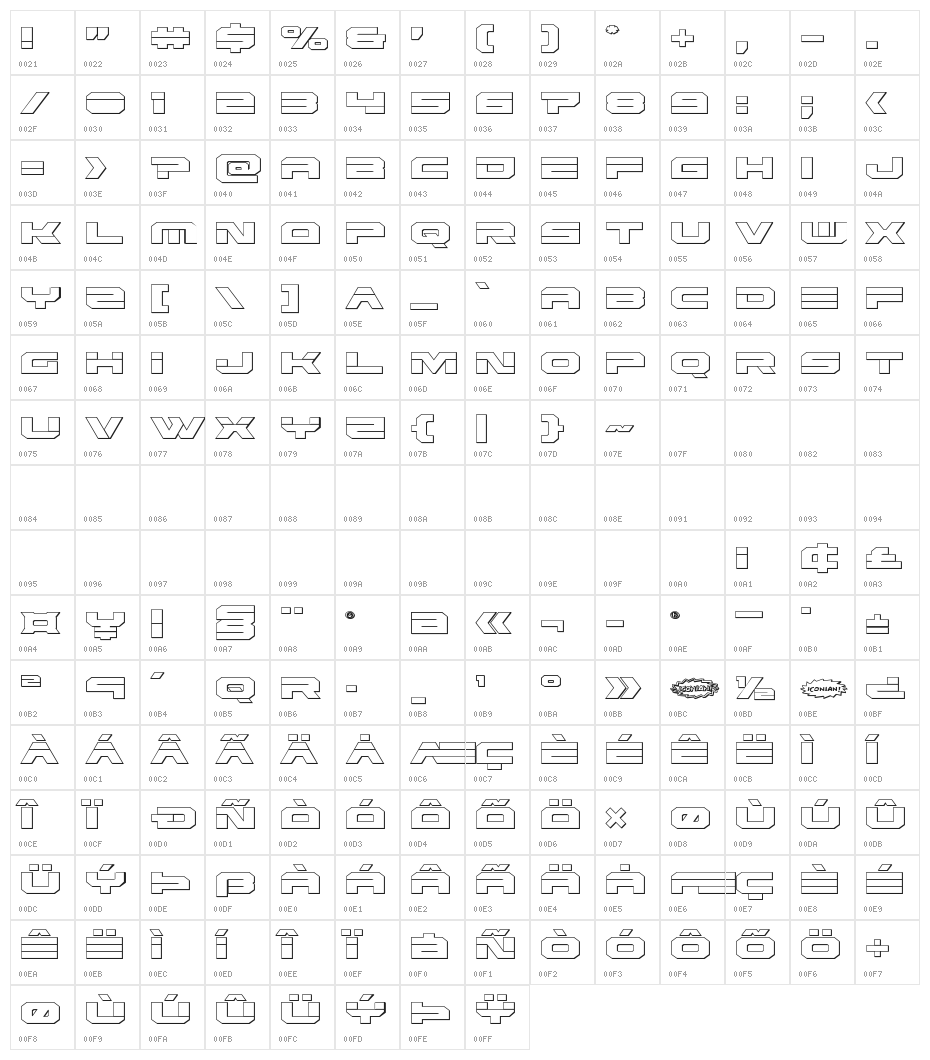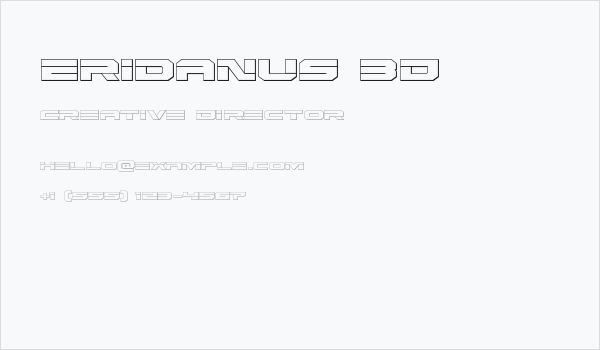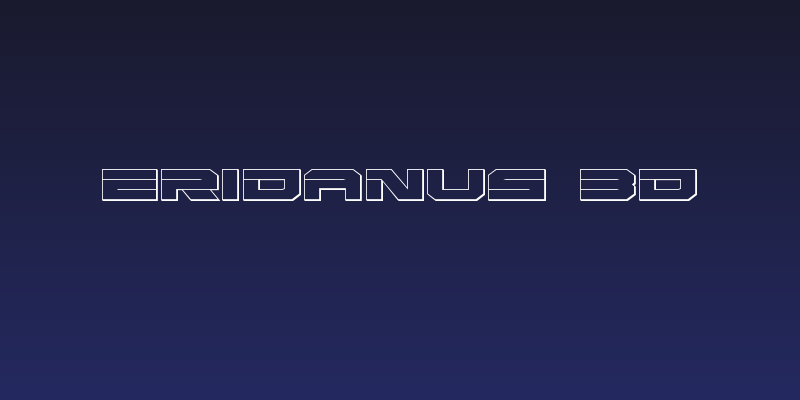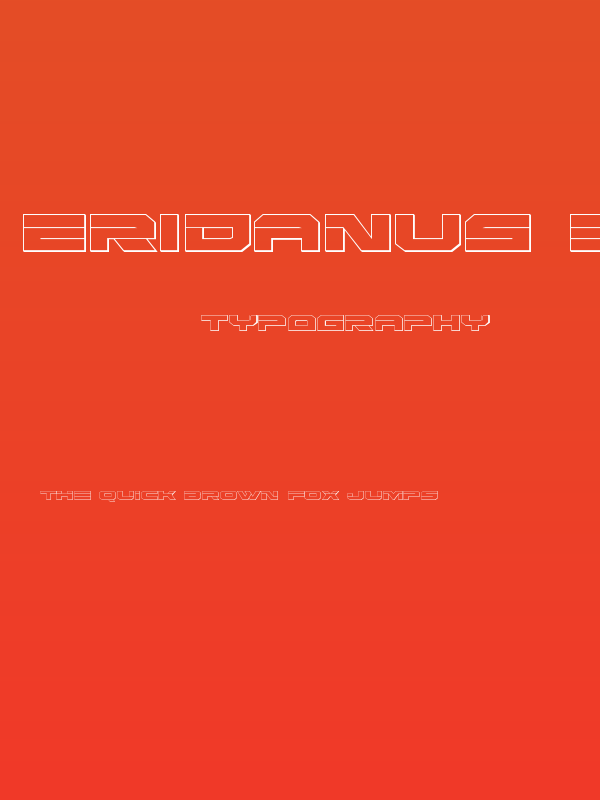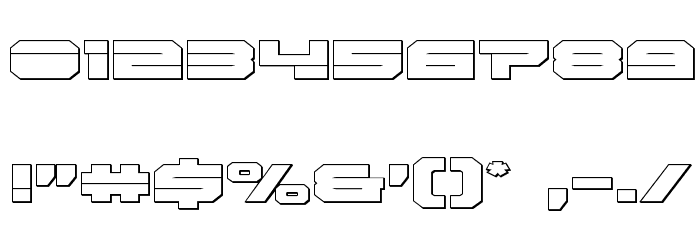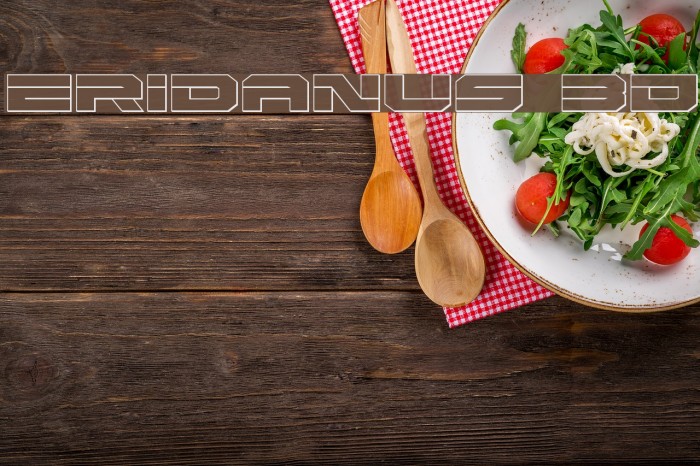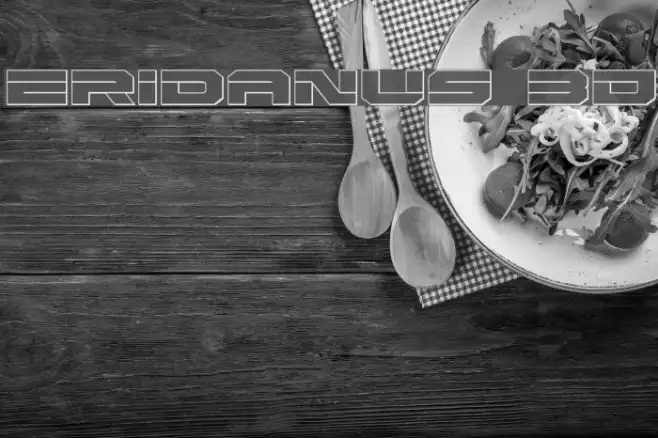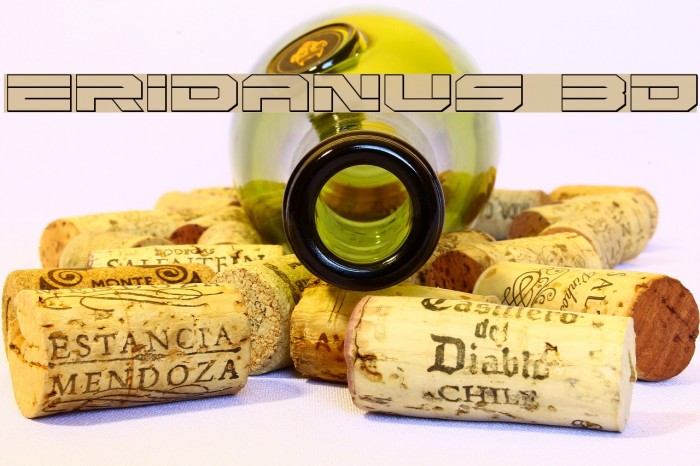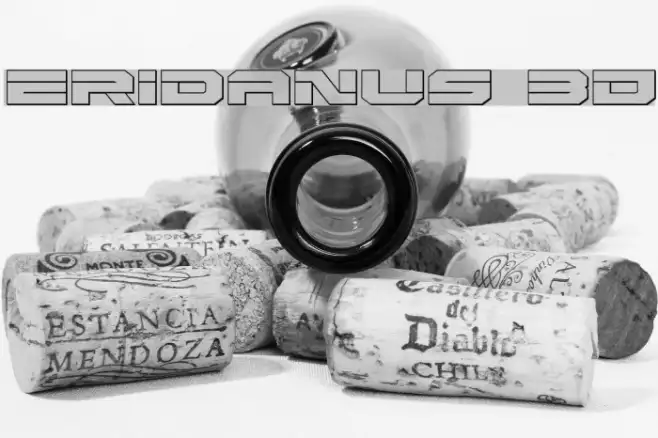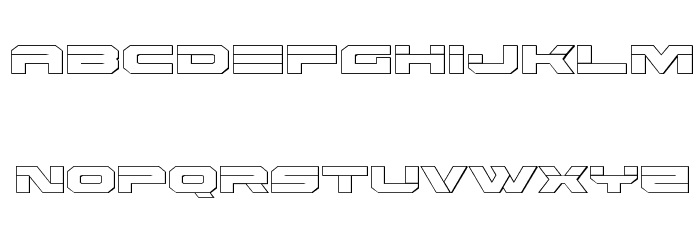
Eridanus 3D Font
Eridanus 3D Description
This font features a bold, geometric design with a three-dimensional effect. The characters are outlined, giving them a futuristic and tech-inspired appearance. The uppercase and lowercase letters maintain a consistent style, with sharp angles and clean lines. The numerals and special characters follow the same design principles, ensuring uniformity across all glyphs. This font's unique structure makes it stand out, ideal for projects that require a modern and innovative look.
ERIDANUS-3D UPPERCASE
ERIDANUS-3D LOWERCASE
ERIDANUS-3D OTHER CHARS